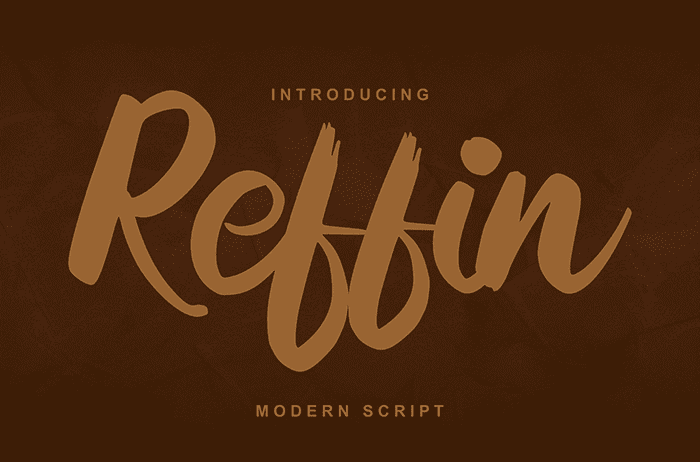
Reffin Script Font
Reffin Script Font results out of a stunning pairing of a brush pen and pencil that makes it look incredibly endearing and authentic. Thanks to Vunira Studio for sharing this font! Take a look at this portfolio for more of his stunning fonts.